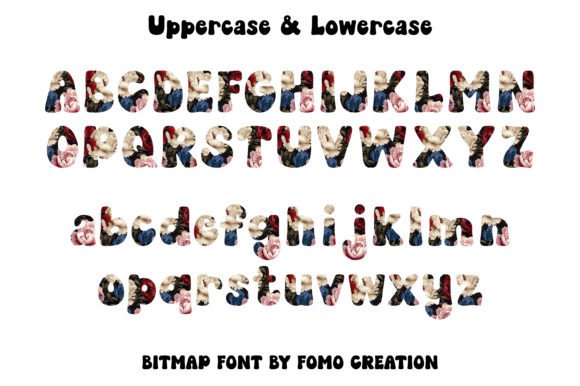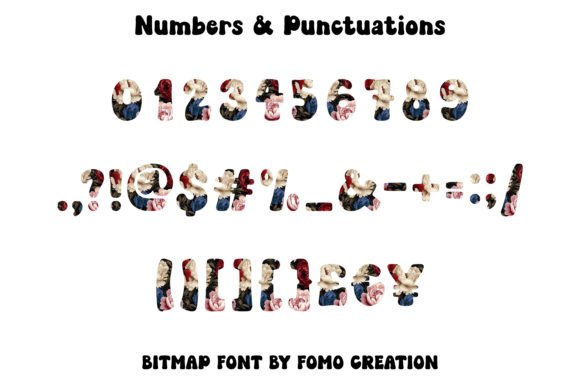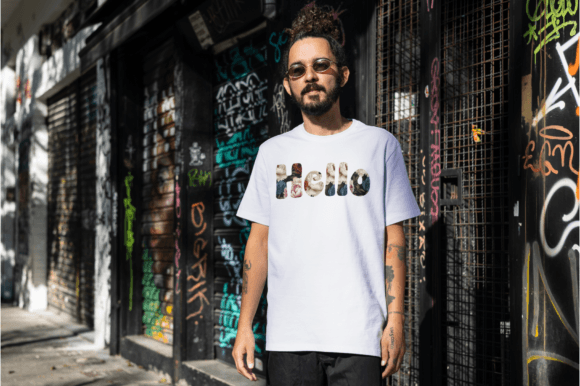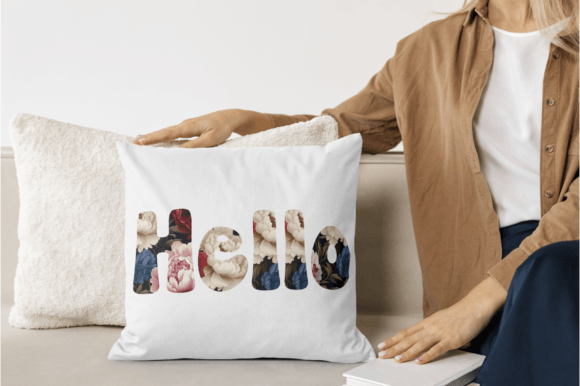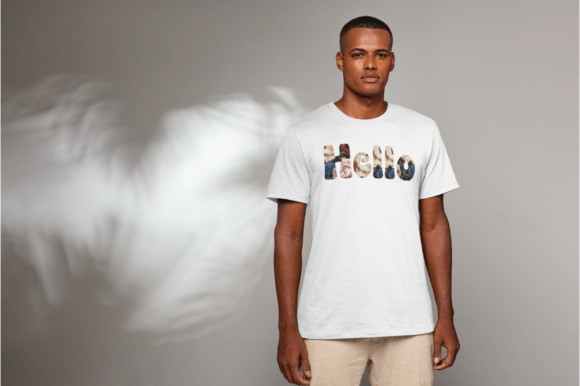
Introduction to Peony Flower Font
Embark on a journey of creativity with our exquisite collection of universal and captivating color fonts.
Elevate your design projects with a spectrum of vibrant hues and intricate details, as our color fonts seamlessly blend artistic expression with typographic brilliance Each font tells a unique visual story, making it a must-have for designers seeking to infuse their creations with unparalleled vibrancy.
Key Features of Peony Flower Font
Why Choose Peony Flower Font?
Peony Flower Font offers exceptional quality and versatility, making it a valuable addition to your design toolkit. Whether you’re creating for personal projects or commercial use, Peony Flower Font delivers professional results.